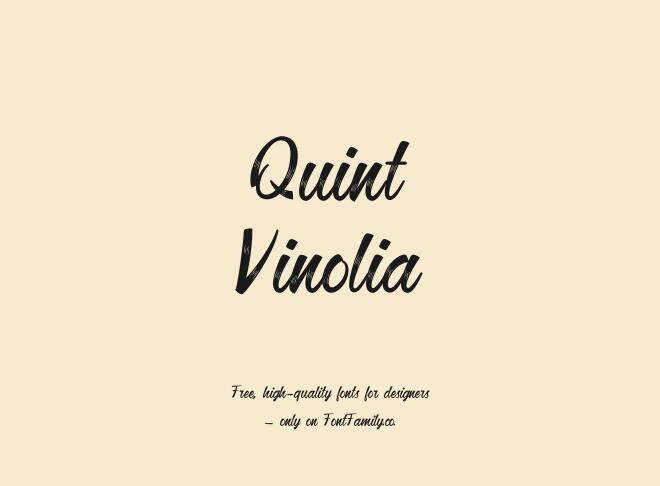
Quint Vinolia Font
Quint Vinolia Font is a unique blend of script and vintage style, making it a perfect choice for any design that needs to evoke a sense of nostalgia or retro charm. The font is characterized by its intricate details and subtle decorative elements, which add a touch of elegance to any design. It is reminiscent of classic script fonts but with a modern twist, allowing it to fit seamlessly into a wide range of design contexts. Whether it's for a logo, poster, packaging, or branding project, Quint Vinolia Font can add a distinctive touch that sets your designs apart from the rest. It's not only visually appealing but also highly readable, making it a versatile choice for designers. With Quint Vinolia Font, you can bring a touch of vintage elegance to your designs without sacrificing readability or versatility.